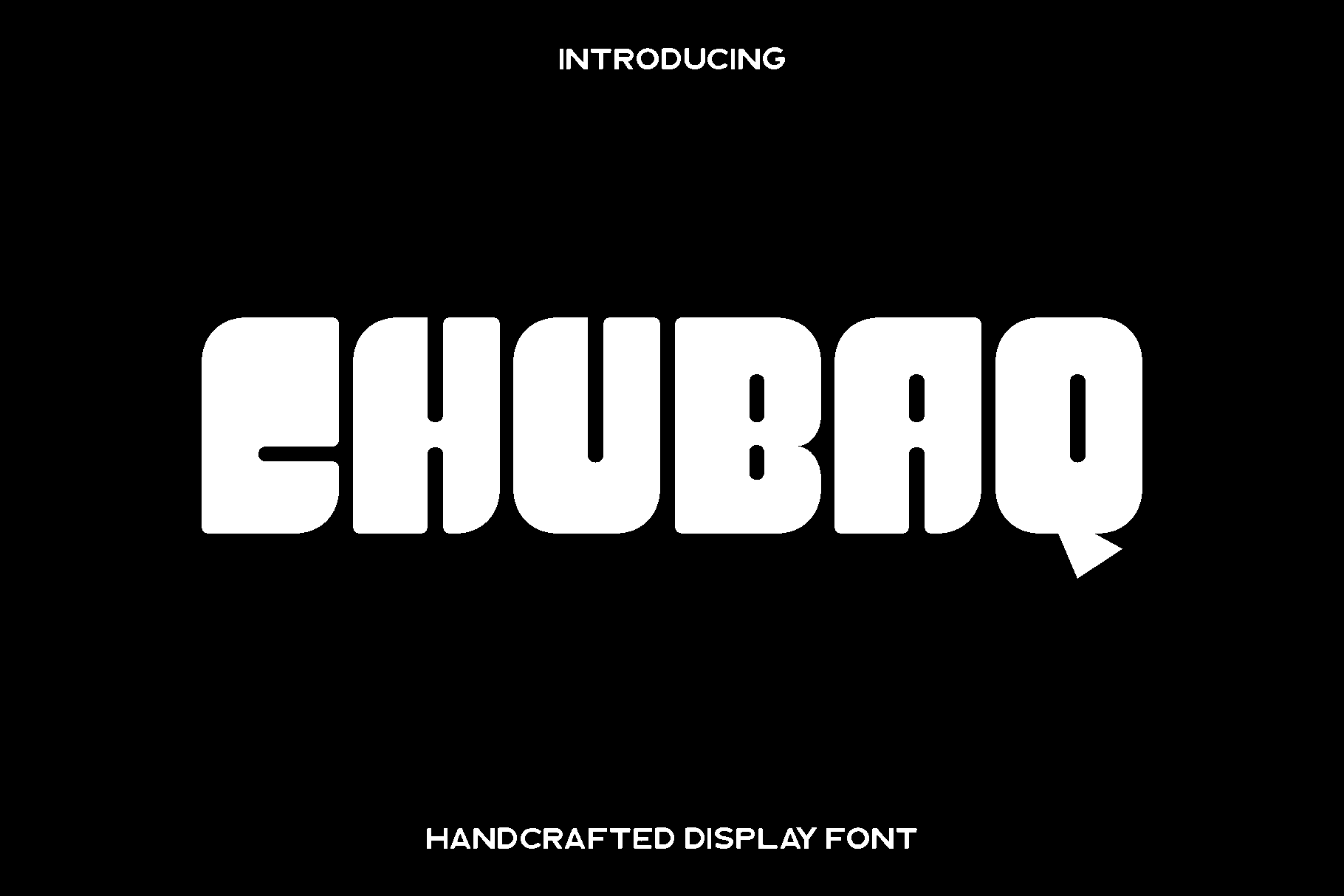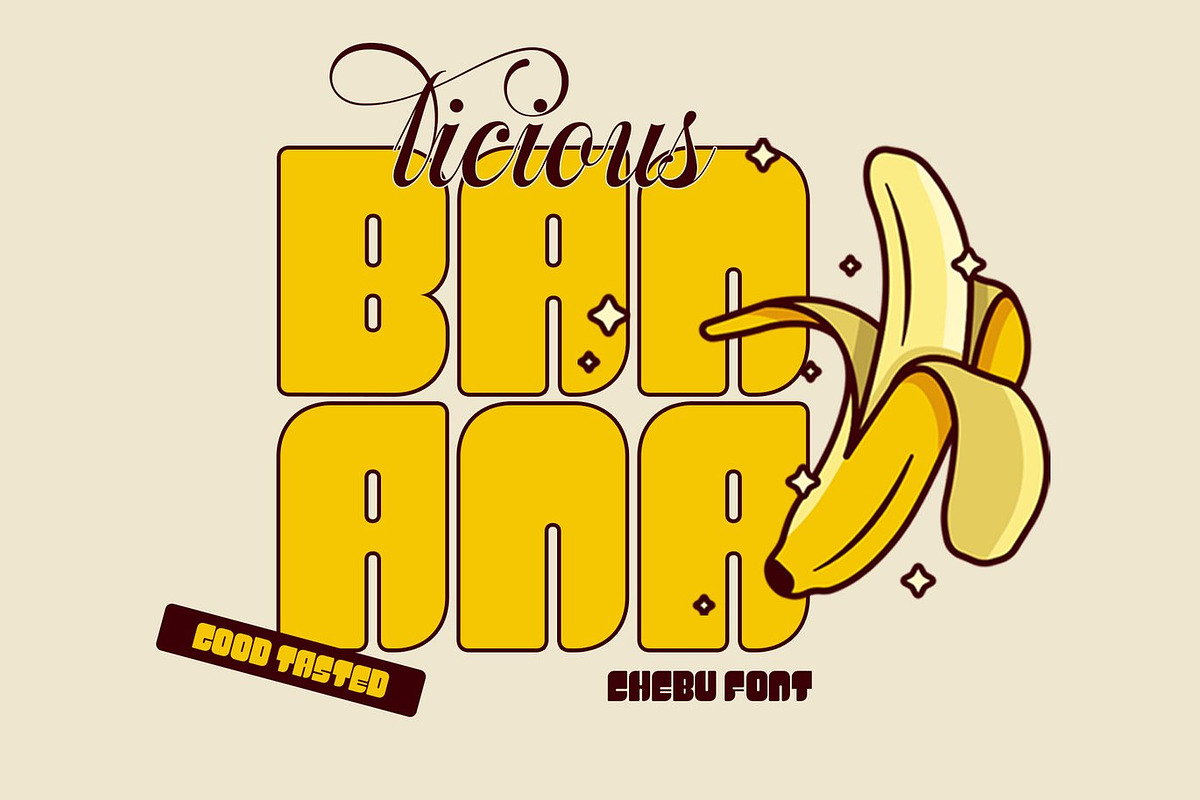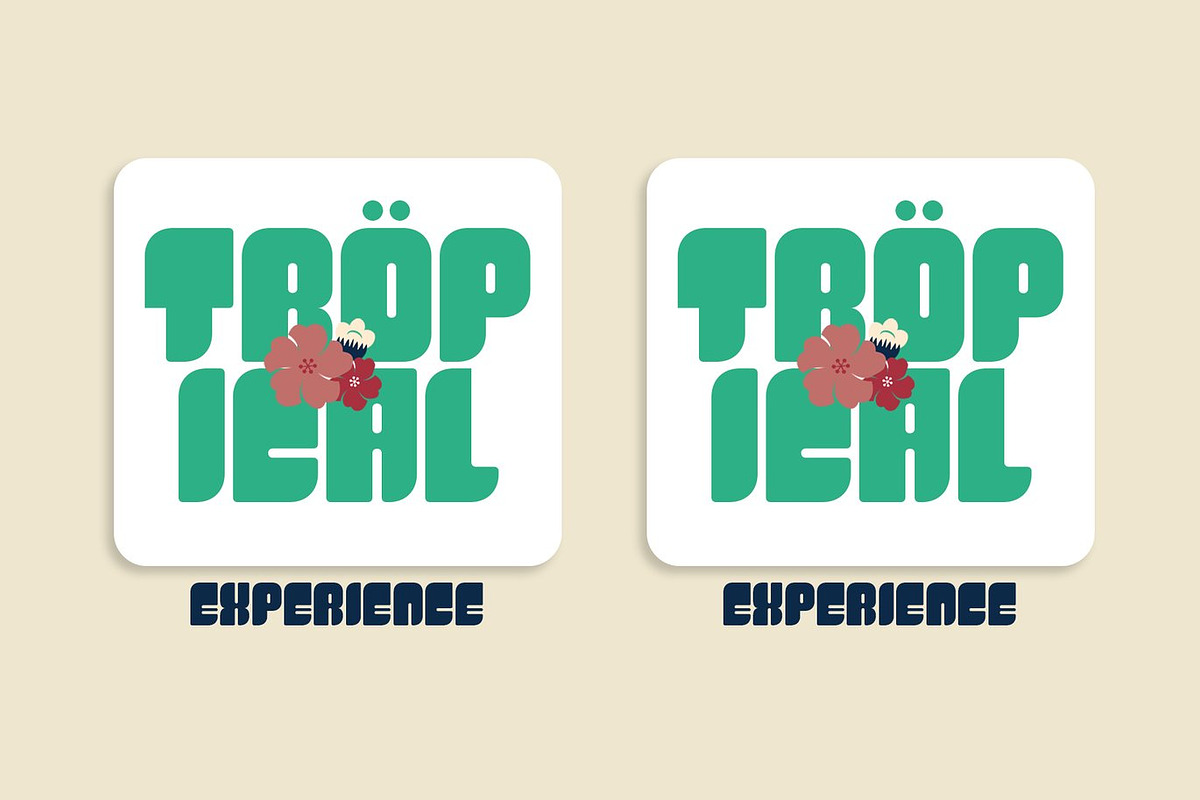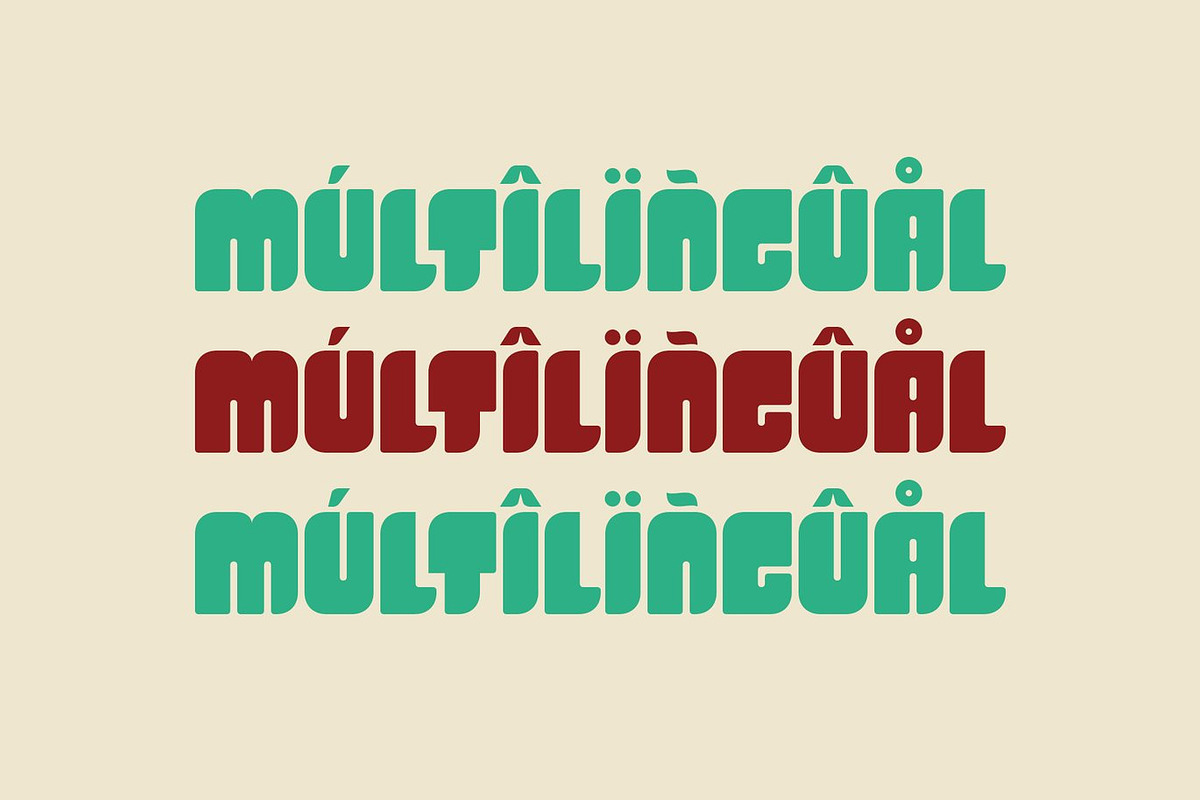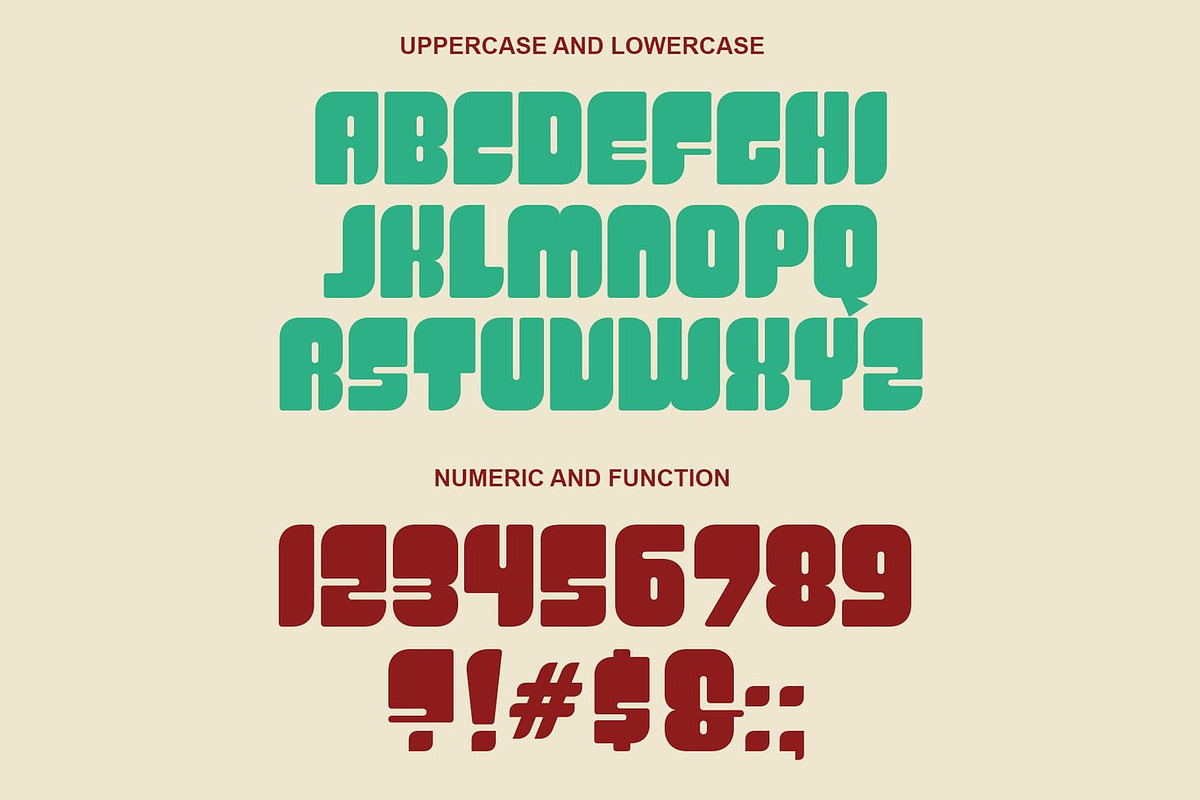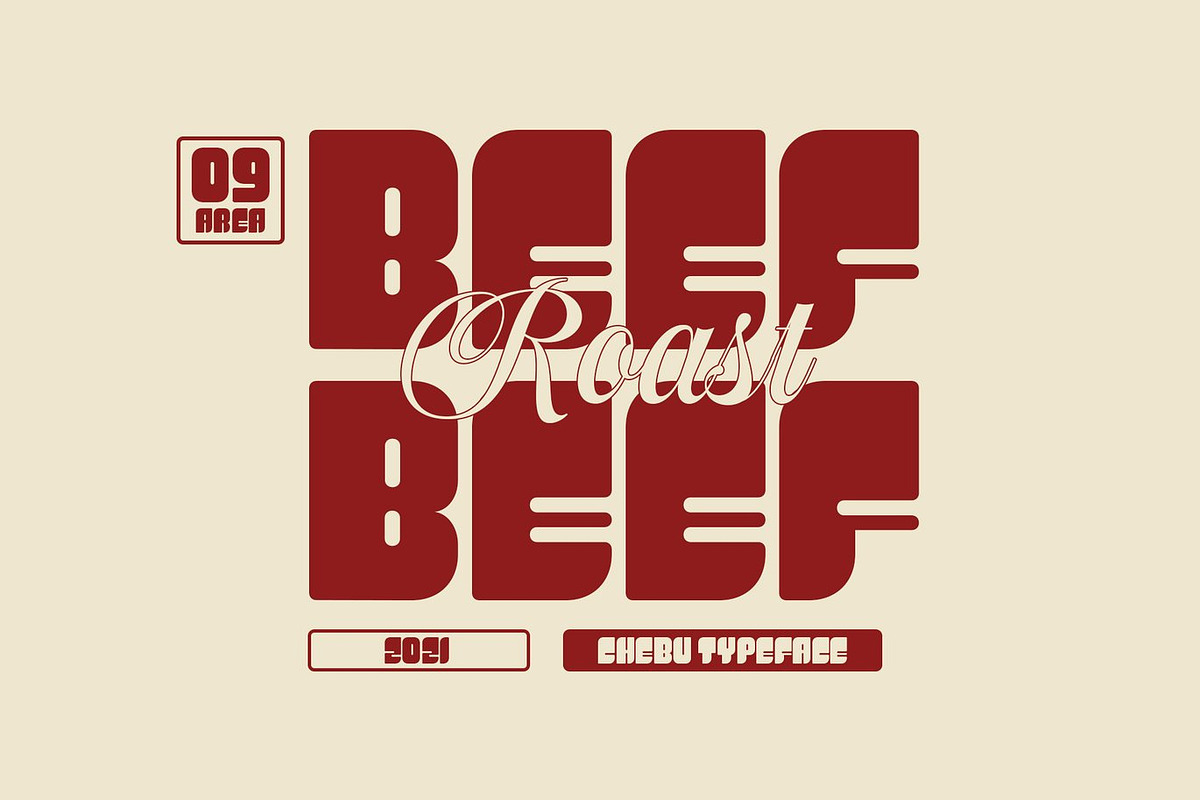
Chubaq - Handcrafted Display Font
Chubaq is a bold and expressive display font created to bring warmth, creativity, and character into your designs. Inspired by handcrafted lettering and playful visual storytelling, Chubaq carries a friendly yet confident personality that instantly makes your work feel personal and eye catching. Each letter is thoughtfully shaped to deliver a natural flow, giving your typography a lively and authentic feel.
This font truly shines in branding projects, Procreate lettering, craft designs, home decor, invitations, posters, stickers, and social media visuals. Whether you are designing for small businesses, creative products, or personal projects, Chubaq adds charm and originality that helps your message stand out. Its balanced structure allows it to work beautifully as both a headline font and a decorative accent.
Chubaq feels creative, approachable, and versatile. It is designed for creators who love bold ideas and handmade aesthetics. With built in ligatures and multilingual support, Chubaq offers flexibility while maintaining a consistent and stylish look across digital and print applications.
Chubaq Font Features:
• Uppercase and lowercase characters
• Numbers and punctuation
• Multilingual support
Chubaq is the perfect choice for designers who want to add personality, creativity, and handcrafted charm to their work.